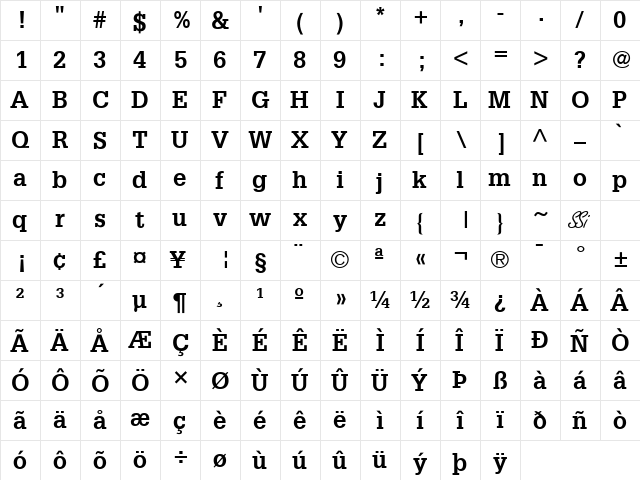
Design Context for Installation SSi Typeface
Installation SSi takes a measured approach to typography — its balanced proportions and neutral character make it a reliable workhorse for both digital and print work. The heavy weight commands attention and anchors typographic hierarchies.